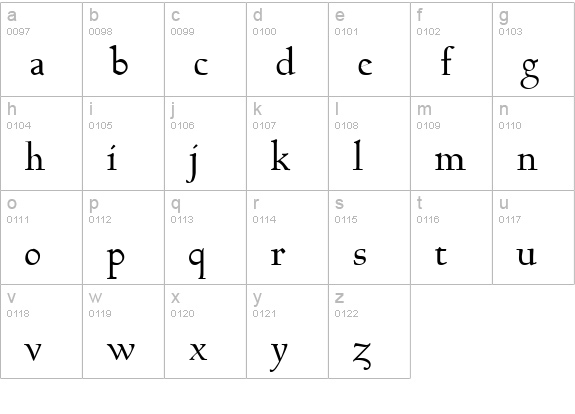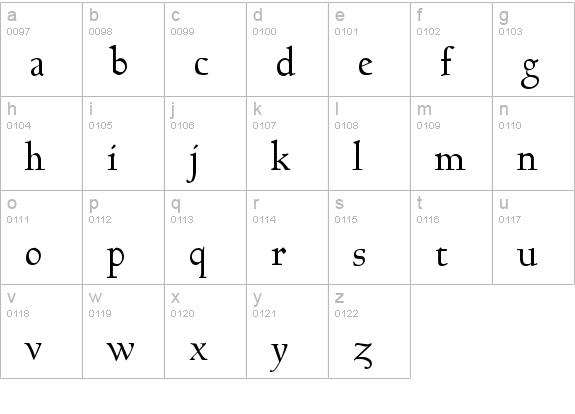
Bertham Font Details
Bertham font is a modern and stylish typeface that exudes elegance and sophistication. With its sleek lines and balanced proportions, Bertham is the perfect choice for a wide range of design projects, from branding to editorial layouts. This versatile font features a unique blend of classic and contemporary elements, making it suitable for both traditional and modern designs. The clean and crisp letterforms of Bertham ensure excellent readability across various mediums, making it a great choice for both print and digital applications. What sets Bertham font apart is that it is not only beautifully crafted but also free for personal and commercial use. You can easily download Bertham font for free at FontsMarket.com, where you can find a wide selection of high-quality fonts for all your design needs. Don't miss out on this fantastic opportunity to enhance your projects with the timeless elegance of Bertham font.